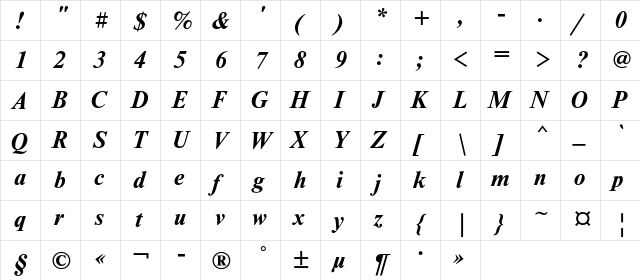
NewtonC Bold Italic
Design Context for NewtonC Typeface
NewtonC is a composed and adaptable typeface that performs quietly and consistently across a wide range of design contexts. The dynamic lean of this cut emphasises speed and emphasis in any layout. Its bold stroke weight gives it real presence on the page.
Pro Tip: Try NewtonC for annotation and caption copy alongside an upright companion — the contrast in angle creates a dynamic but ordered typographic system.